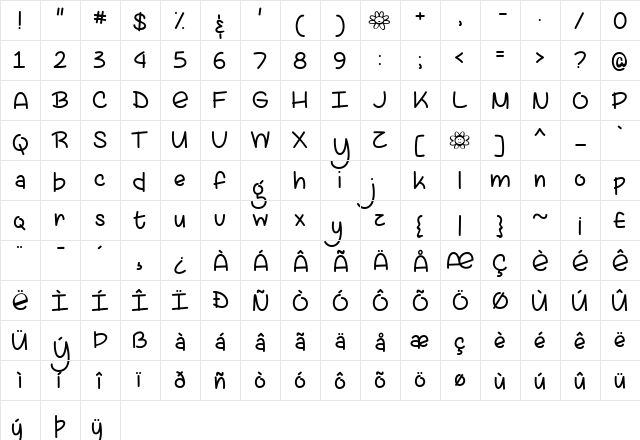
Lazy Spring Day Regular
Design Context for Lazy Spring Day Typeface
Lazy Spring Day is a composed and adaptable typeface that performs quietly and consistently across a wide range of design contexts.
Pro Tip: Use Lazy Spring Day in both headline and body roles to test its range before committing to a single application.